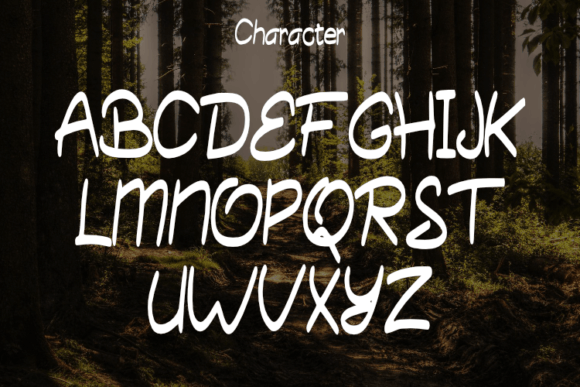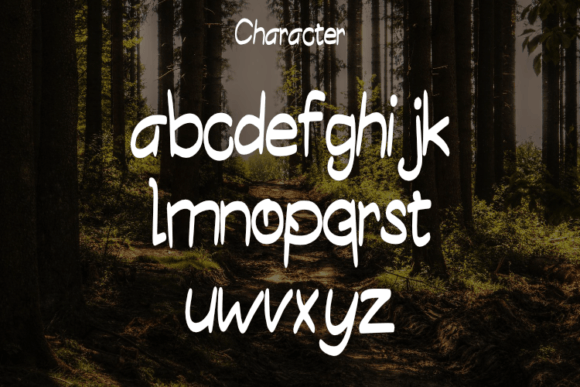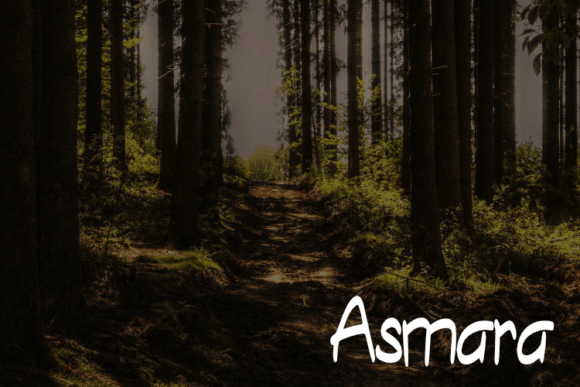
Discover the Elegance of Asmara Font: A Modern Script Typeface
In the world of typography, a font can make all the difference in the aesthetic and tone of a design. For those seeking an elegant and luxurious feel, the Asmara Font is an excellent choice. This script typeface boasts a simple yet modern style, making it perfect for a wide range of applications, from logos and titles to fashion brands and quotes.
What is Asmara Font?
Asmara Font is a script typeface characterized by its clean lines, flowing curves, and contemporary look. Its simplicity is what sets it apart, allowing it to be versatile and adaptable to various design needs. The font’s modern aesthetic makes it an ideal selection for designers looking to infuse their work with a touch of sophistication and elegance.
Key Features of Asmara Font
- Simple Style: The Asmara Font features a straightforward design that ensures clarity and readability, making it suitable for both digital and print media.
- Modern Look: Its modern appearance gives it a fresh and trendy feel, perfect for designs that require a current and stylish vibe.
- Elegant and Luxurious: The flowing script style of Asmara Font exudes elegance and luxury, making it an excellent choice for high-end branding, fashion, and editorial designs.
- Versatility: This font can be used across a variety of platforms and projects, showcasing its adaptability and wide range of applications.
Use Cases for Asmara Font
The versatility of Asmara Font makes it suitable for numerous design projects. Here are some of the top use cases:
- Elegant Logos: Create a lasting impression with a logo that embodies sophistication and class. Asmara Font is perfect for luxury brands, high-end services, and premium products.
- Book and Movie Titles: Add a touch of glamour to your book covers or movie titles with this stylish font, making them stand out in a crowded market.
- Fashion Brands: Elevate your fashion brand’s visual identity with Asmara Font, ideal for logos, packaging, and marketing materials.
- Magazines and Editorial Content: Use Asmara Font for article titles, headings, and quotes to add an elegant touch to your editorial content.
- Clothing and Apparel: From brand names to taglines, Asmara Font can enhance the aesthetic appeal of your clothing and apparel designs.
- Quotes and Typography Art: Create stunning typography art with Asmara Font, perfect for sharing inspirational quotes on social media or using in graphic projects.
Why Choose Asmara Font?
Choosing the right font for your design project can be daunting, but Asmara Font offers several compelling reasons to consider it:
- Unique yet Readable: It strikes a balance between uniqueness and readability, ensuring your message is conveyed effectively while standing out.
- Time-Saving: With its versatile nature, Asmara Font can be used across multiple projects, saving you time and effort in searching for different fonts.
- Professional Appeal: The font’s elegant and modern look gives any design a professional appeal, suitable for businesses and individuals looking to make a strong visual impact.
Asmara Font is a versatile and stylish script typeface that can elevate the quality and aesthetic of your designs. Whether you’re working on a logo, editorial content, or marketing materials, this font offers the perfect blend of elegance, luxury, and modernity. Its simplicity and readability make it a practical choice for a wide range of applications, ensuring your designs are both visually appealing and effective in communicating your message.
Explore the possibilities with Asmara Font and discover how it can transform your designs into elegant and luxurious creations that capture attention and leave a lasting impression.